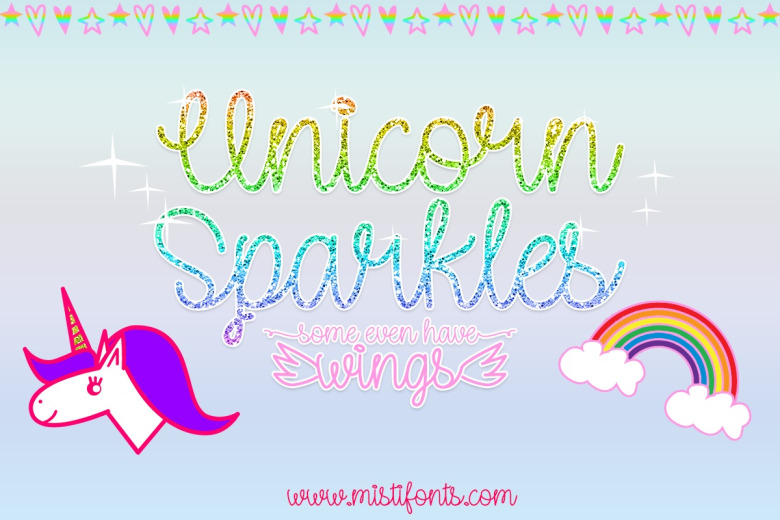
Unicorn Sparkles Font
Unicorn Sparkles is a high quality Handwritten font that is designed by Misti’s Fonts and is available for free download and personal use. The free version provides all uppercase and lowercase letters and a few special characters too.